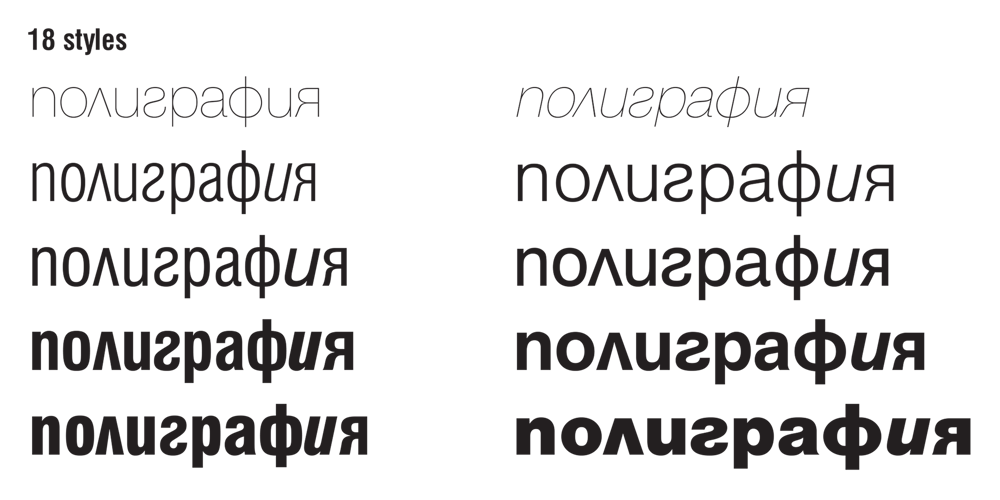
Helen Bg Font Family was designed by Vassil Nikolov and published by HS Fonts. Helen Bg contains 18 styles and family package options. The font package Helen Bg Family is in 5 weights and two widths, 18 styles: Thin, Thin Italic, Light, Light Italic, Regular, Italic, Bold, Bold Italic, Black, Black Italic, Light Condensed, Light Condensed Italic, Condensed, Condensed Italic, Bold Condensed, Bold Condensed Italic, Black Condensed and Black Condensed Italic.Helen Bg is made with Bulgarian Design of Cyrillic and is recommended for the publications for Bulgaria.Other version with standard Cyrillic is available from HermesSoft Limited.Typeface design: Vassil Nikolov.Release date: 1991 – 96, HermesSOFTDesign notes and Technical dataHelen belongs to the typefaces from the humanistic sanserif grotesk fonts. The font is for wide use – from the classical typesetting to the display typography.In the Bulgarian Code Page are included all vowels with accents that are really necessary for the typesetting in Bulgarian language, and are not included in the Cyrillic Code Page:HelenIs available in OpenType PostScript and WEB font formats.